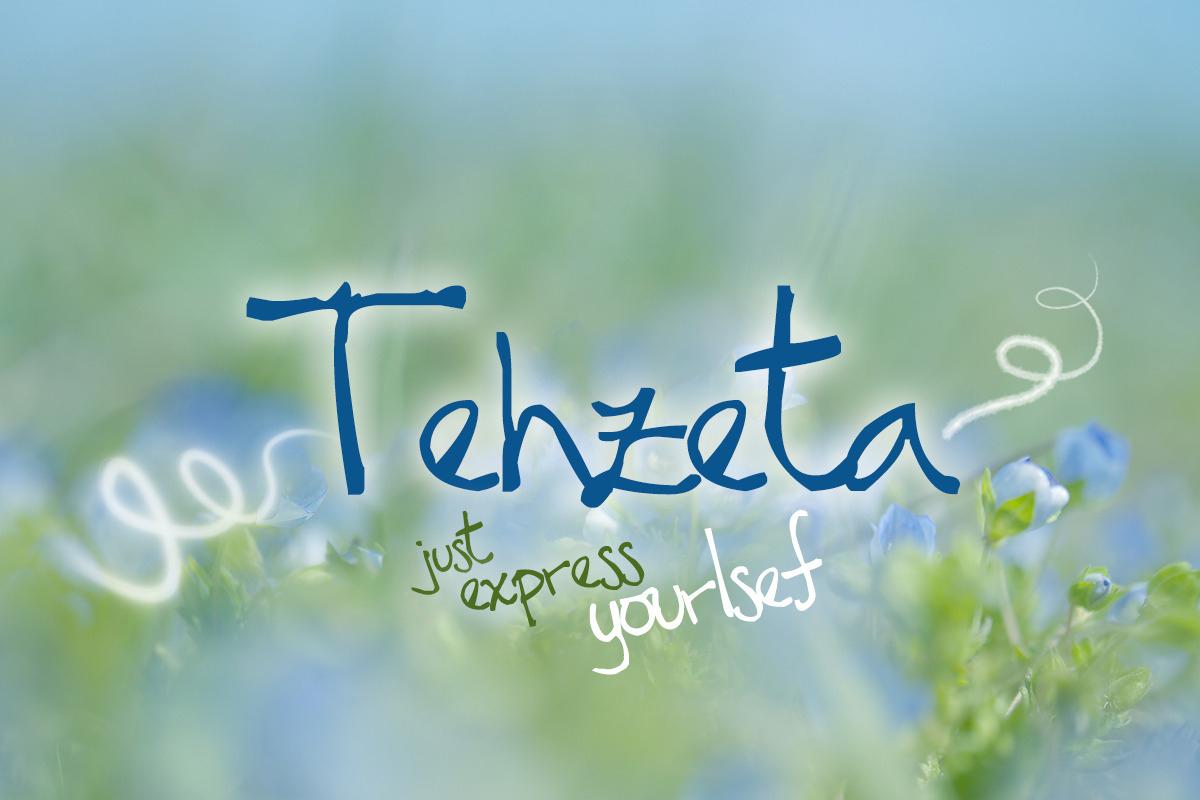
Add a lot of personality to your designs with TEHZETA! A font for creating authentic hand-lettered text quickly & easily.
- Does the font include accented characters? : Yes, it supports Spanis.